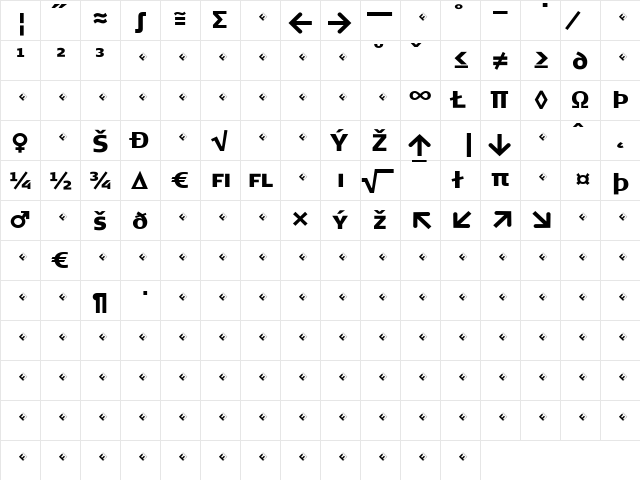
Signa Regular Font Preview
Signa Regular
Signa Regular Font Details
Design Context for Signa Typeface
Signa is a composed and adaptable typeface that performs quietly and consistently across a wide range of design contexts.